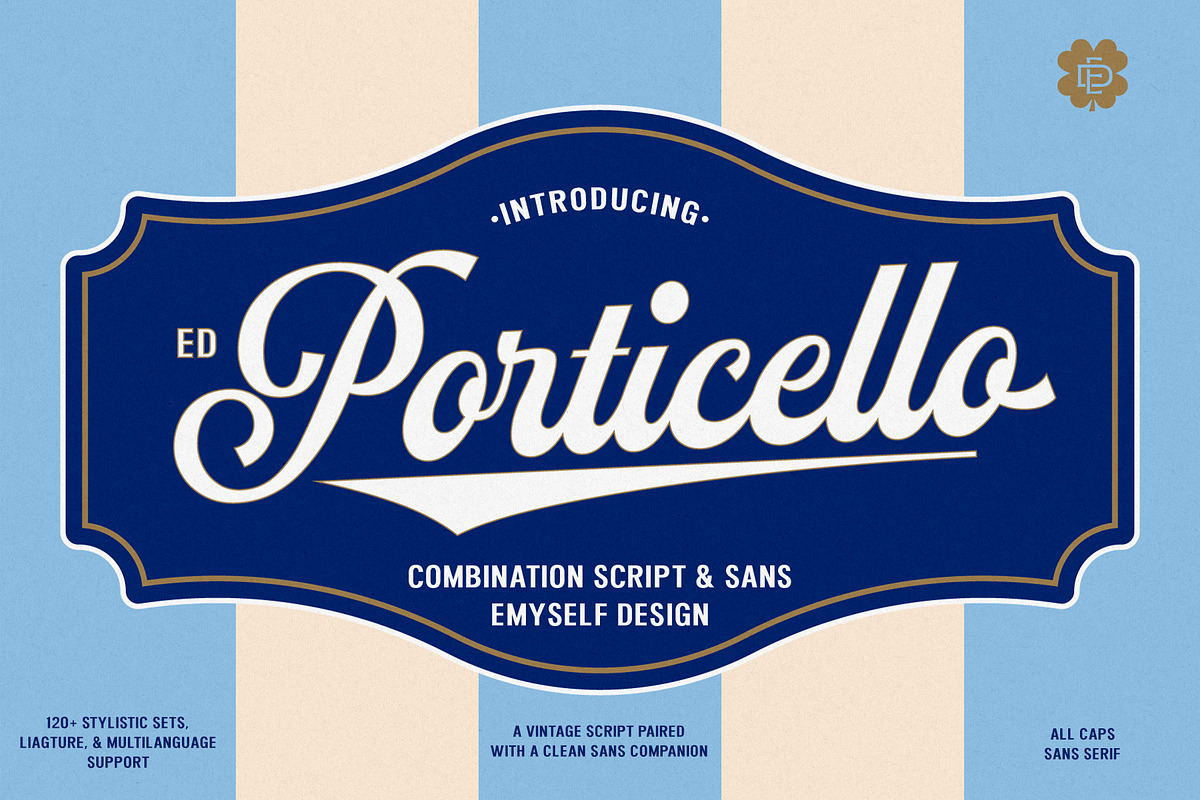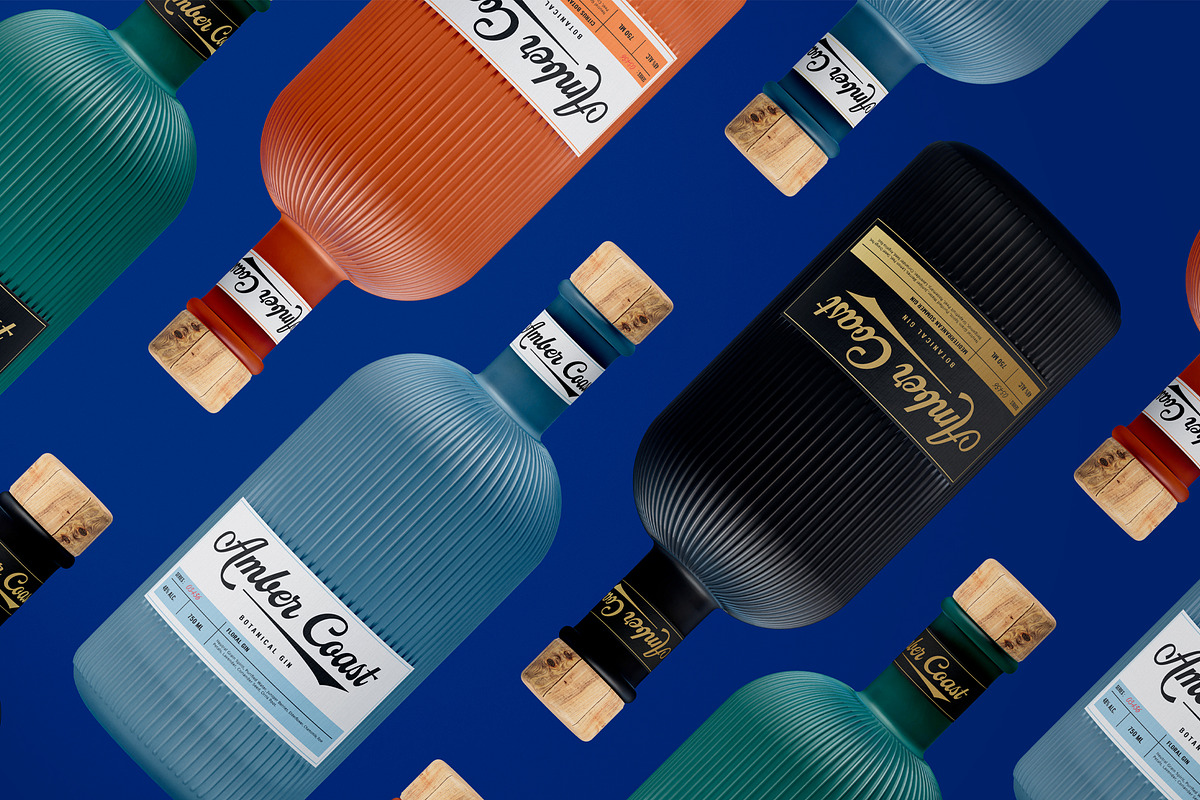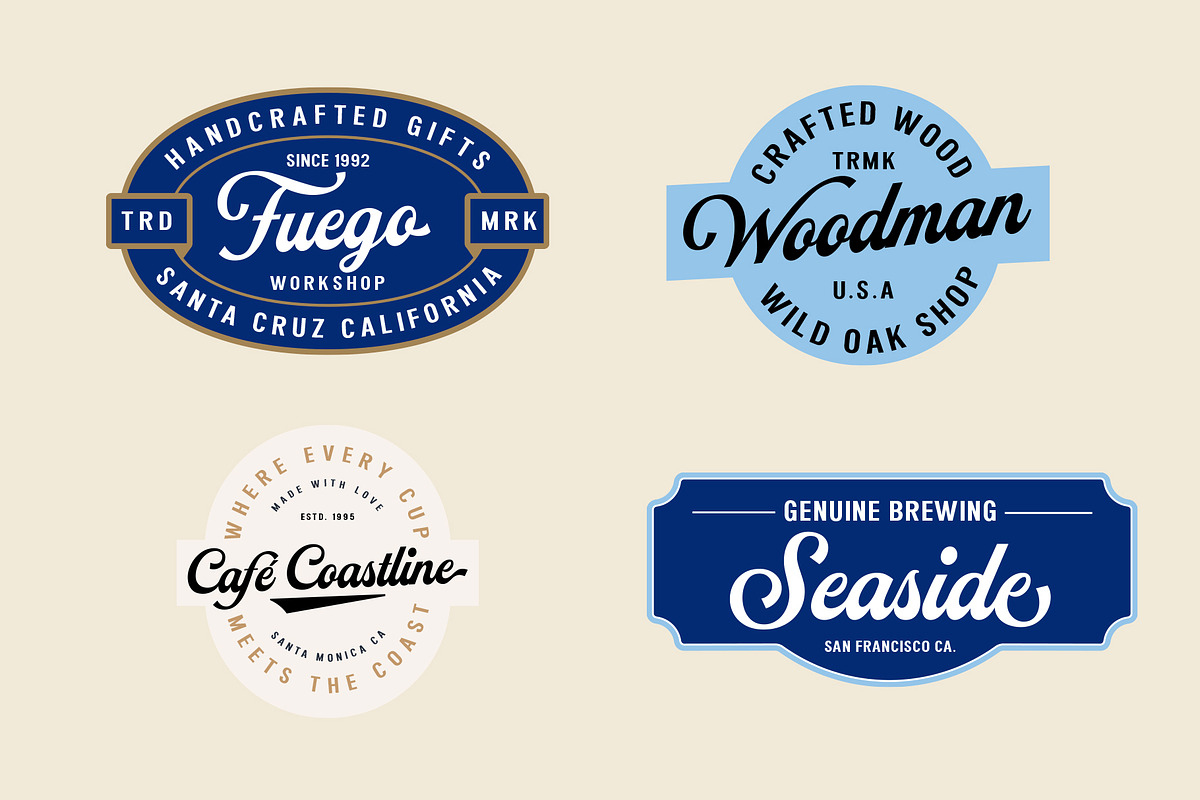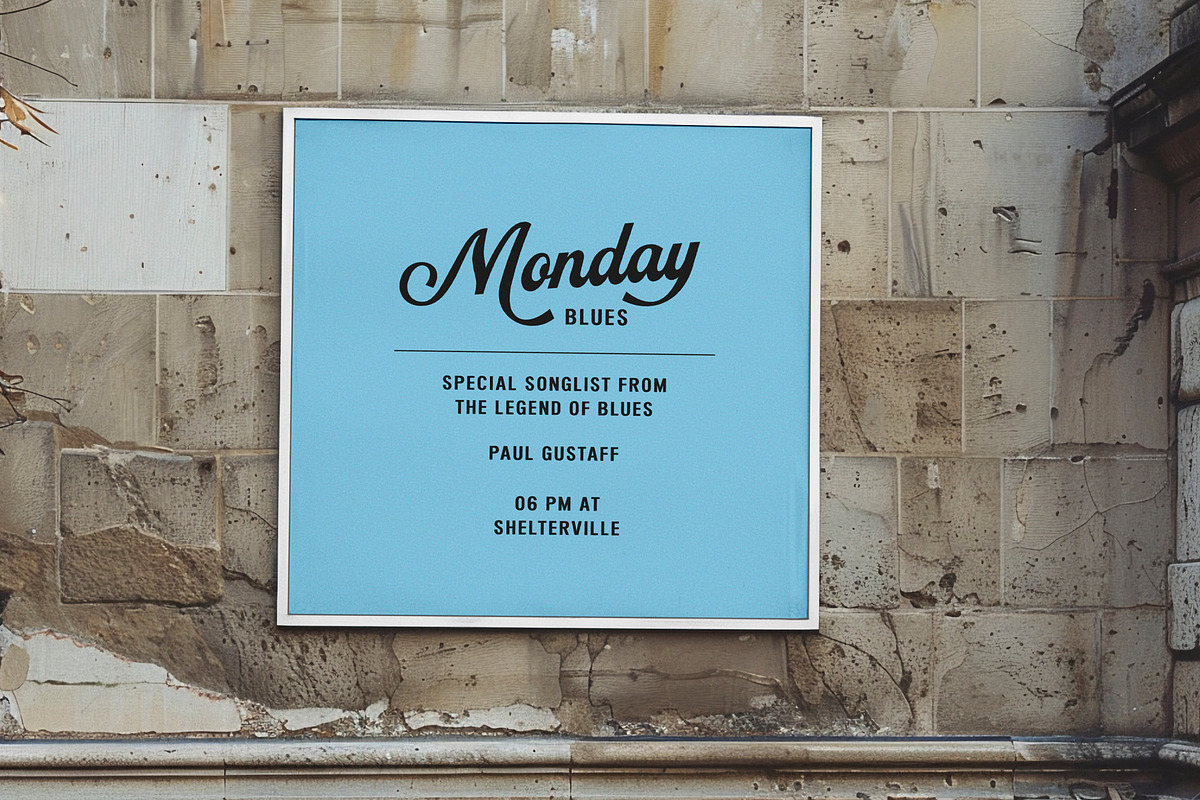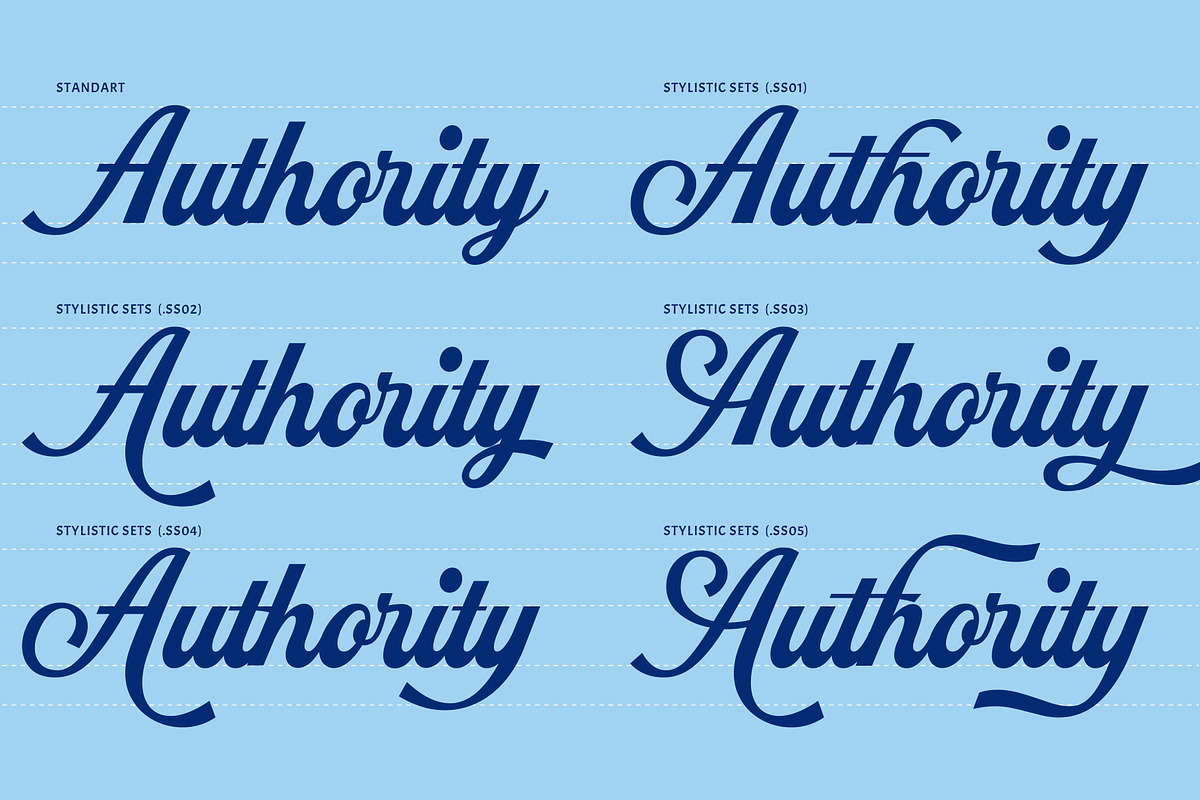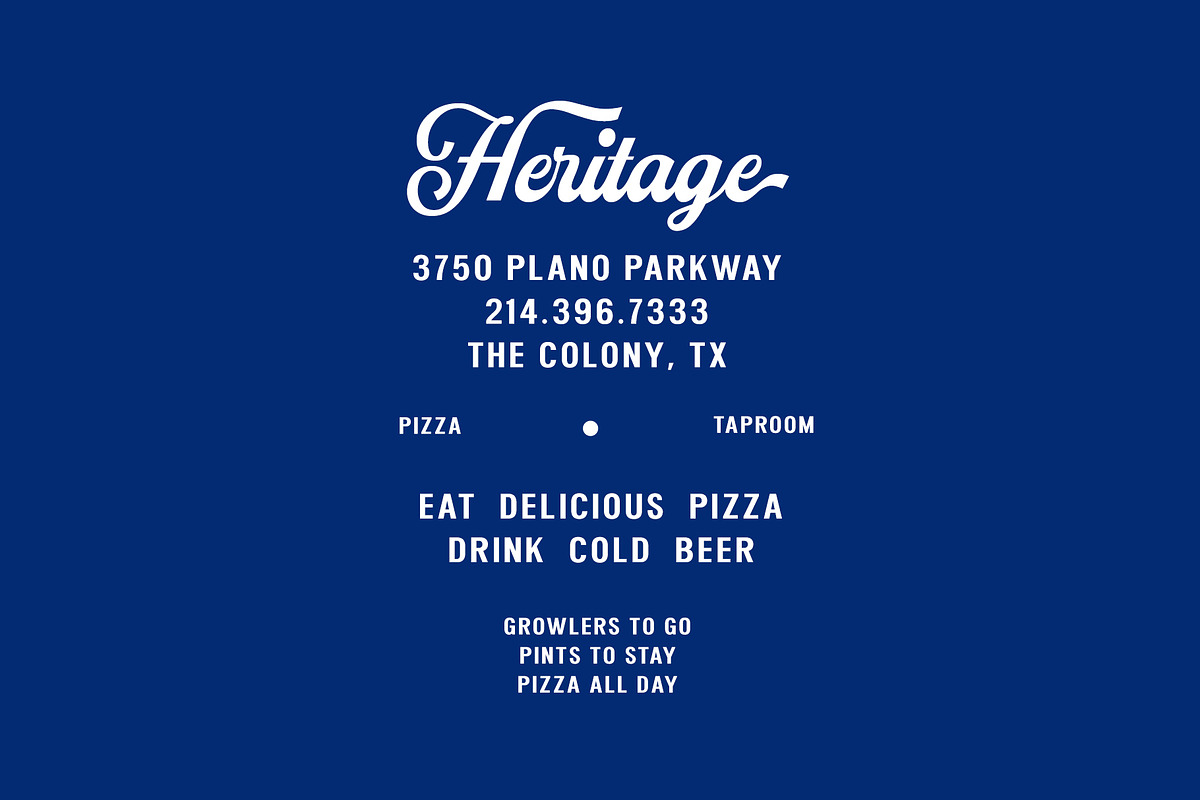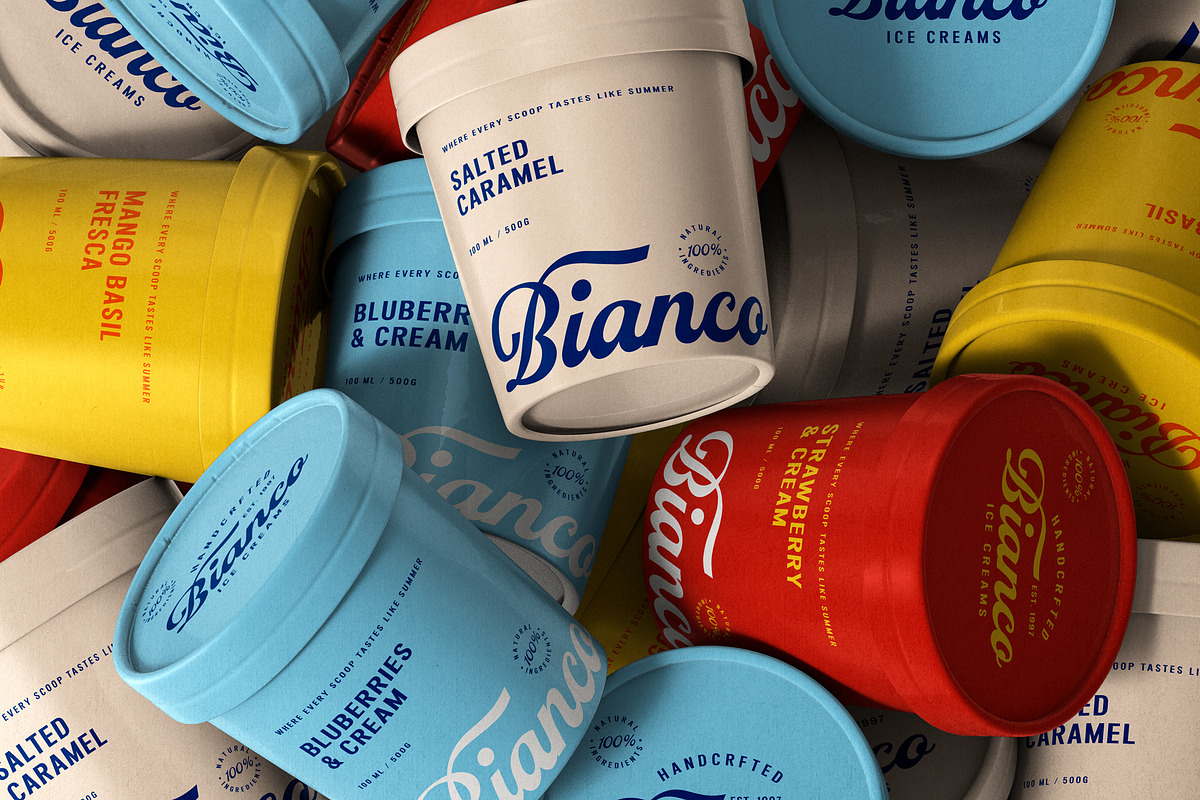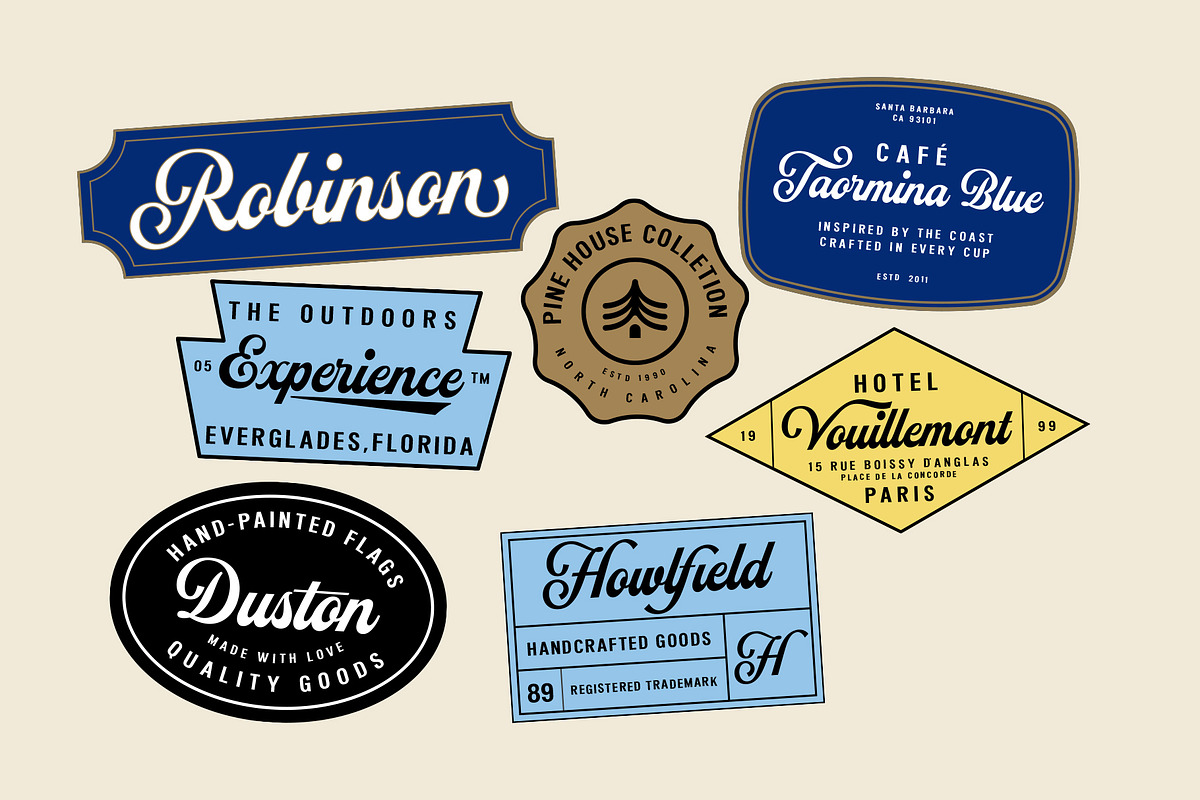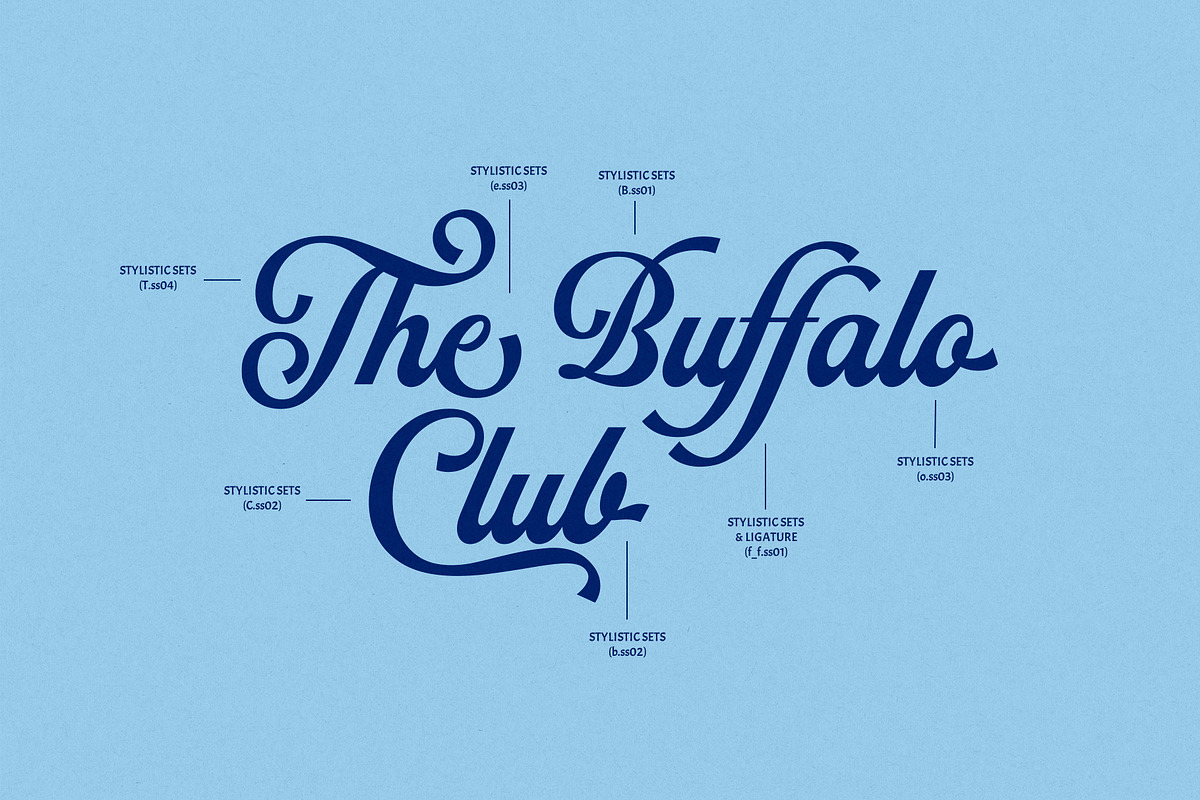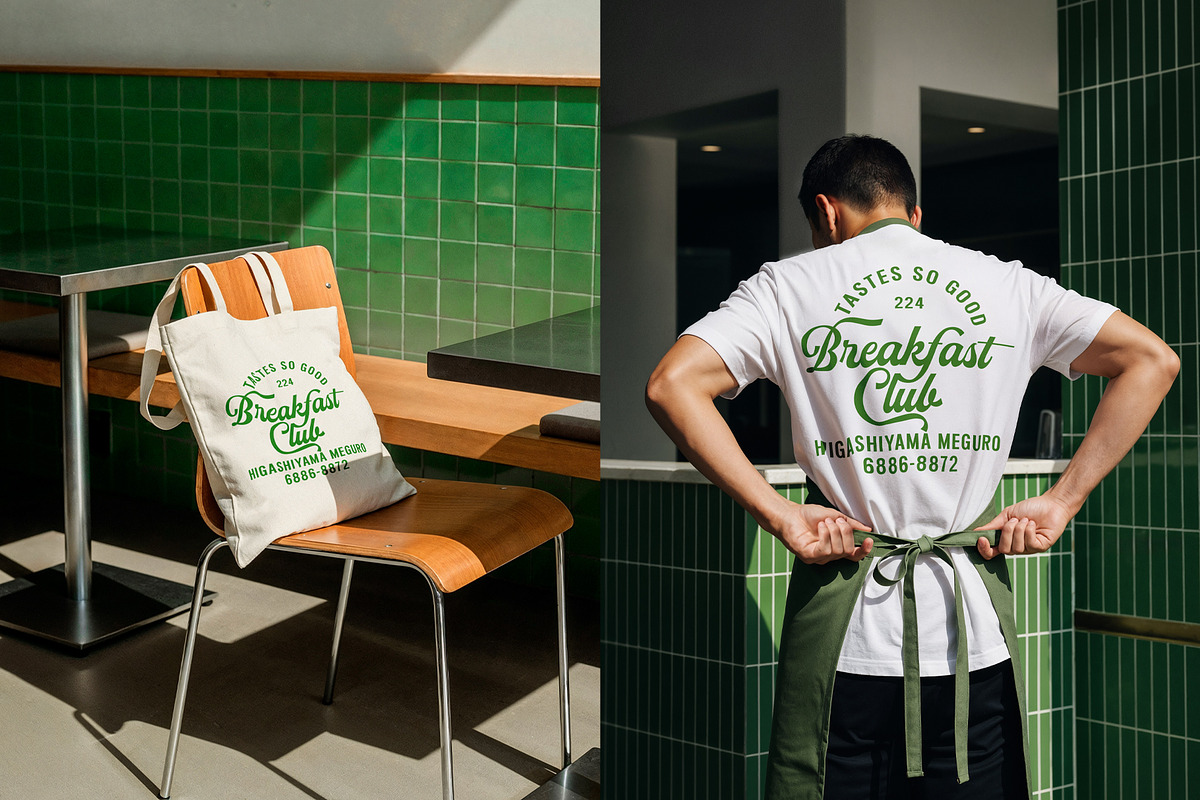
ED Porticello - Vintage Font Duo
Introducing ED Porticello, a retro-inspired font duo that blends the elegance of classic script lettering with the clean confidence of a bold sans serif companion.
Porticello Script brings old-world charm to life with sweeping curves, playful connectors, and a nostalgic feel reminiscent of vintage signage, hand-painted logos, and mid-century packaging. It's not just beautiful — it's built for real design work, packed with 120+ stylistic sets, ligatures, swashes, and multilingual support, giving you endless flexibility to customize every word until it feels handcrafted and one-of-a-kind.
Paired alongside it is Porticello Sans, a clean, all-caps sans serif designed to balance the script's flourish with structure and readability. Together, they create a dynamic contrast — decorative yet grounded, vintage yet versatile — perfect for branding, labels, badges, apparel, packaging, wedding stationery, and any project that calls for timeless character with a modern edge.
Porticello Script (OpenType features: 120+ stylistic sets, ligatures, swashes, multilingual support)
Porticello Sans (All caps sans serif)
Multilingual language support
Perfect for logos, branding, packaging, apparel, and editorial design